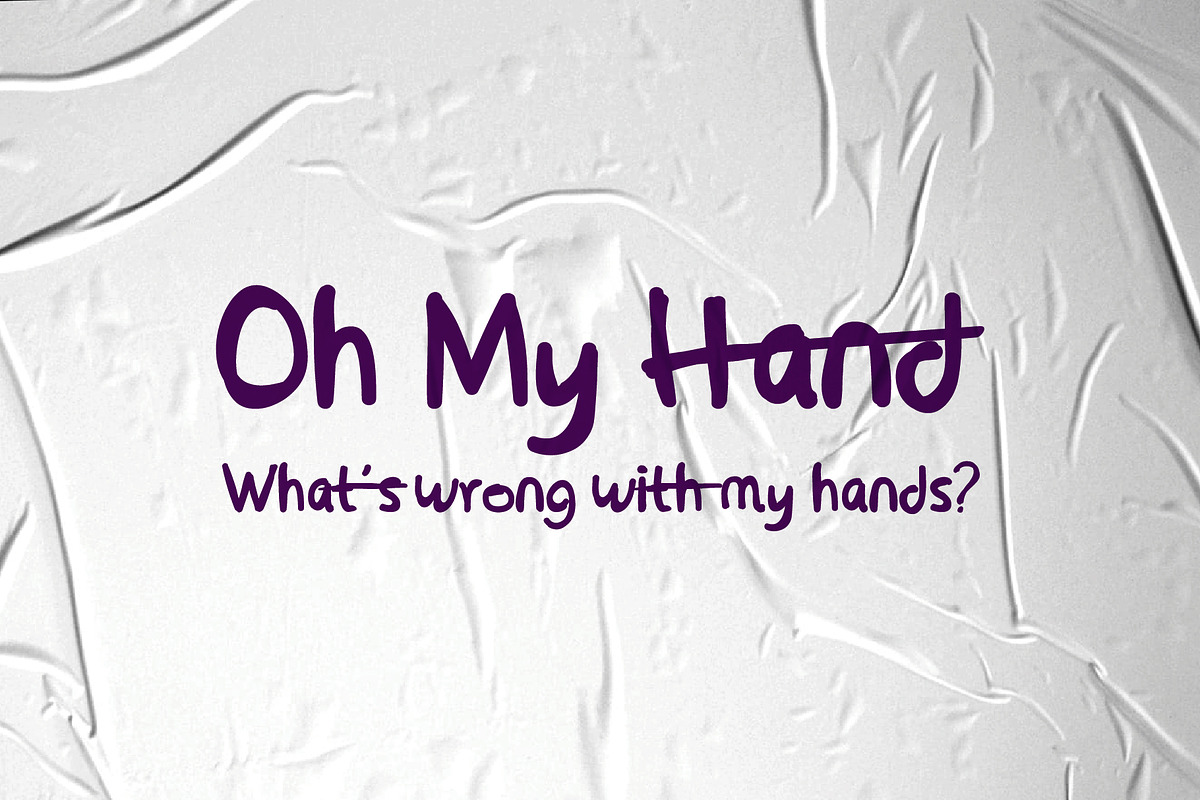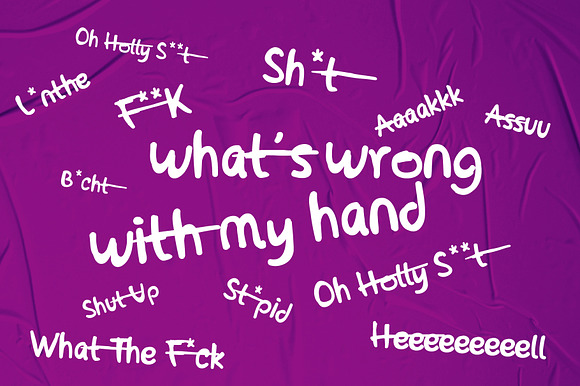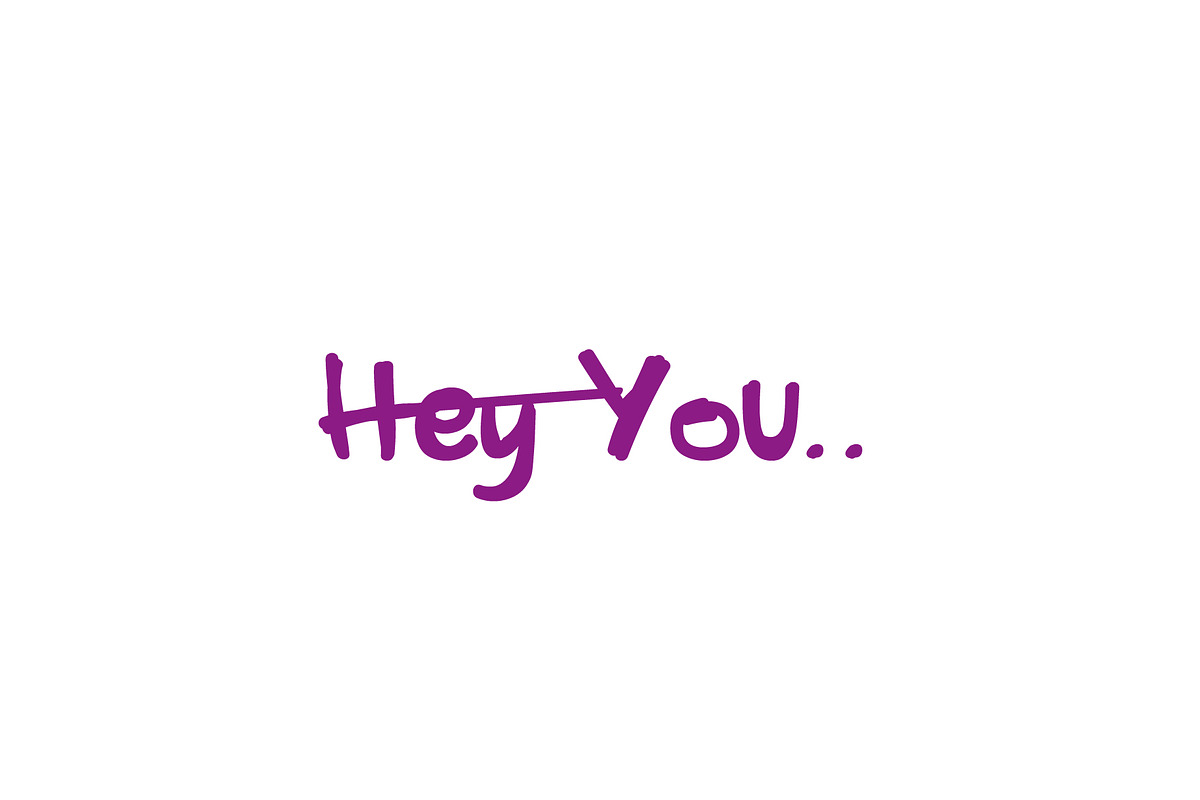
Oh My Hand Scrip Font
the name of this font is "OhMyHand", you surely know. Wrong handwriting, scribbling on writing to show someone emotional in facing life. I sold this font cheaply to show my annoyance towards WFH.
Why Oh My Hand Scrip Font is worth a look
Oh My Hand Scrip Font by tipudaya fits naturally into Branding, posters, packaging, typography.